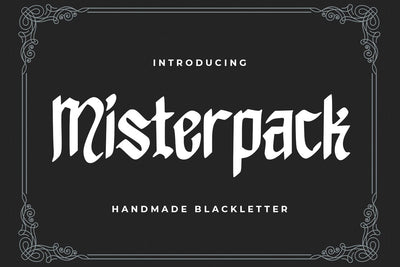
Misterpack
introducing
MISTERPACK
- handmade blackletter-
It is great for branding, quotes, logos, t-shirt designs, tote bag designs, cards, banners, social media, and more in retro and vintage feel.